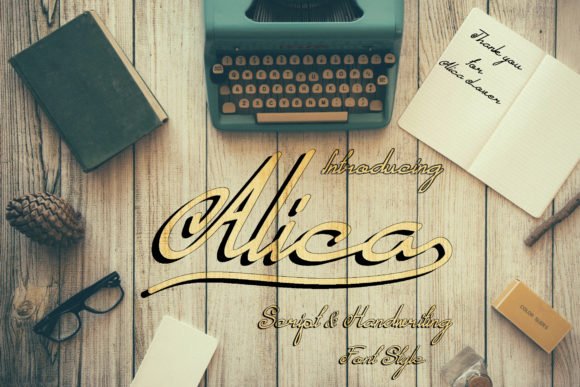
Discover the Timeless Charm of Alica Font
There’s nothing quite like the feeling of staring at a blank page, waiting for inspiration to strike. For designers, this moment can be a thrilling mix of excitement and intimidation. It’s the moment when you get to bring your vision to life, and that’s exactly what the Alica Font is designed to help you do.
Alica Font is a beautiful, handwritten font that exudes a sense of calm and authenticity. With its elegant swashes and subtle flair, it’s the perfect choice for designers looking to add a touch of timeless elegance to their projects. Whether you’re working on a wedding invitation, a branding campaign, or a simple greeting card, Alica Font is sure to inspire.
As a valuable addition to any designer’s toolkit, Alica Font offers a unique combination of style and versatility that’s hard to resist. Its classic appeal makes it a must-have for designers looking to create pieces that stand the test of time.
Alica Font Key Features
- Unique Characteristics: Alica Font features a unique blend of modern and classic design elements, making it suitable for a wide range of applications, from digital interfaces to printed materials.
Alica Font Review
Overall, I was quite impressed with the Alica Font. It’s a beautiful, elegant script font that’s perfect for creative projects. ✨ The font is highly legible and has a unique, hand-painted feel to it. The letterforms are flowing and organic, making it ideal for use in invitations, wedding stationery, and other special occasions.
- The Alica Font has a wide range of styles and weights, including bold, italic, and condensed versions. This makes it incredibly versatile and suitable for various design projects.
- The font is well-suited for use in large text, such as headings and titles, as well as smaller text, like body copy and captions.
- The Alica Font is highly customizable, allowing designers to adjust the font’s characteristics to suit their specific needs.
While the Alica Font is a great choice for many projects, it does have some limitations. ⚠️ The font may not be the best choice for projects that require a more modern or minimalist aesthetic. Additionally, the font’s unique feel may not be suitable for projects that require a more formal tone.
Overall, I would highly recommend the Alica Font for designers looking for a beautiful, elegant script font. While it may have some limitations, its unique qualities and versatility make it a valuable addition to any designer’s toolkit.
Tips for Getting the Most Out of Alica Font
Use Alica Font to add a touch of elegance and sophistication to your designs. Pair it with bold and playful fonts for a striking contrast. Experiment with different font sizes and styles to create visual interest and hierarchy in your design.
Alica Font is perfect for:
- Luxury brand logos and packaging
- High-end event marketing materials
- Formal business presentations and reports